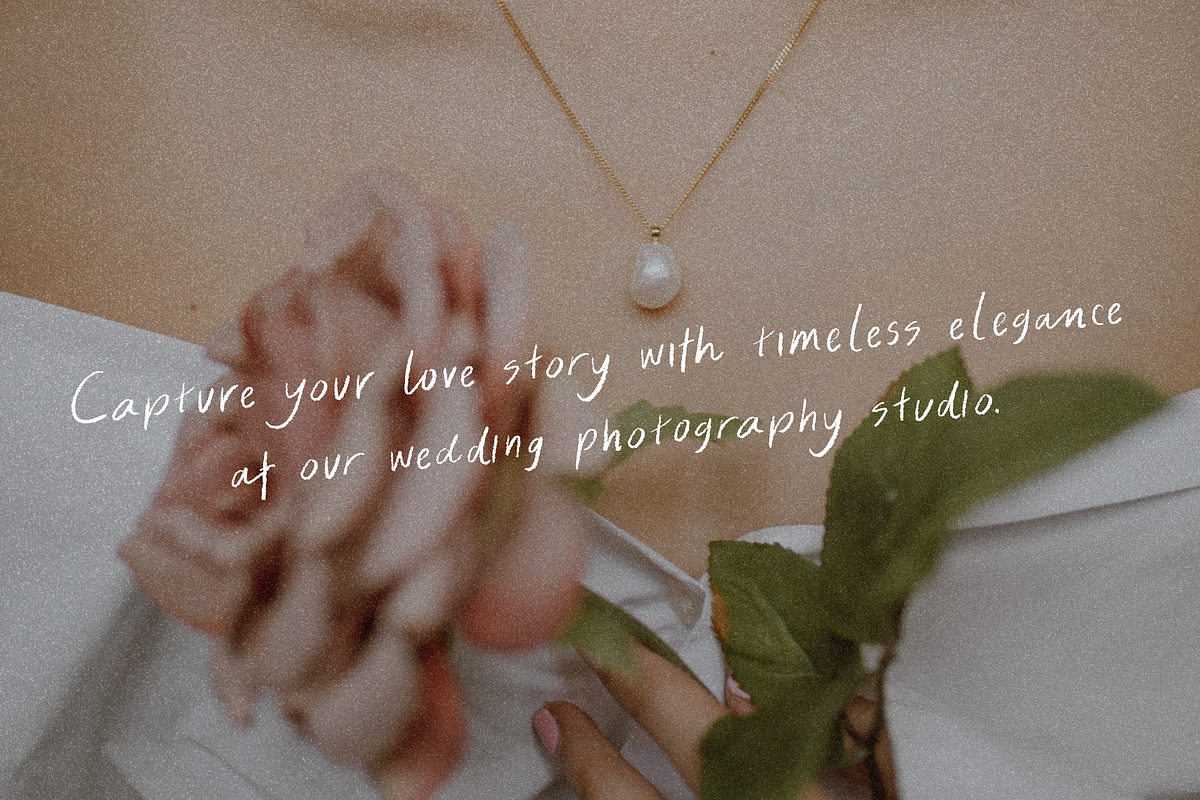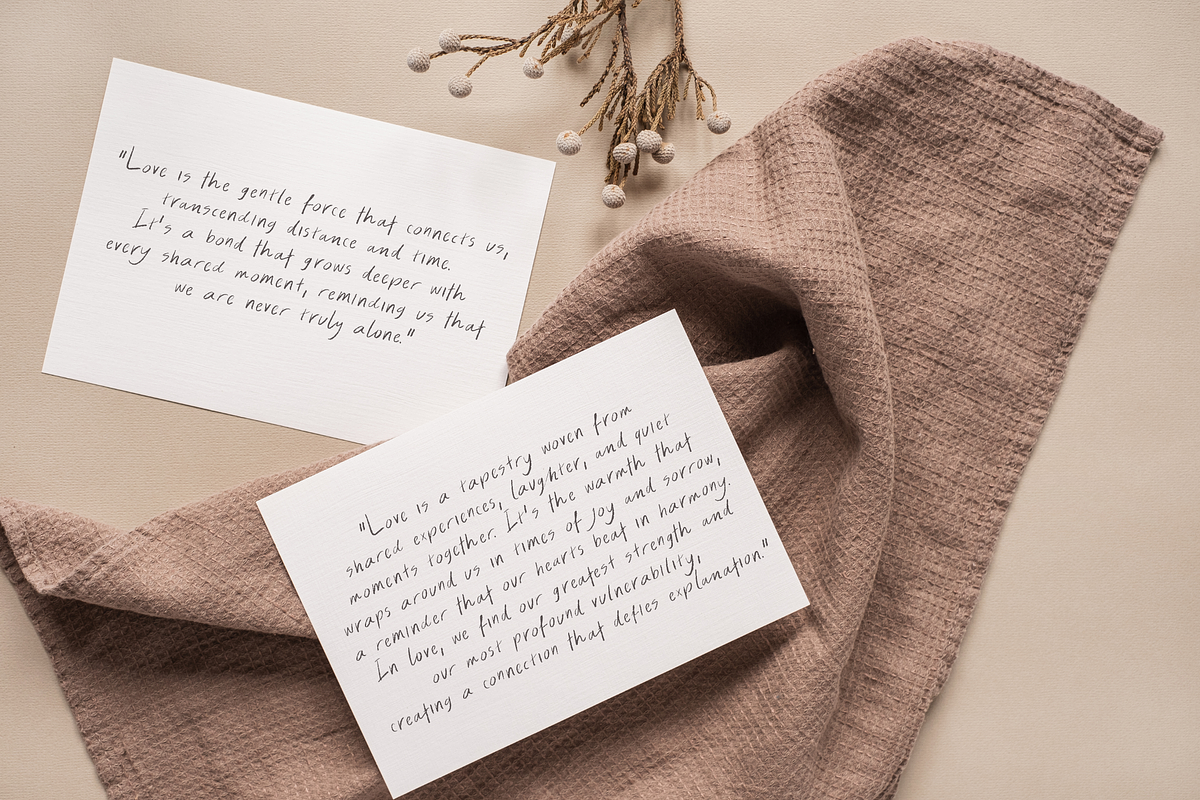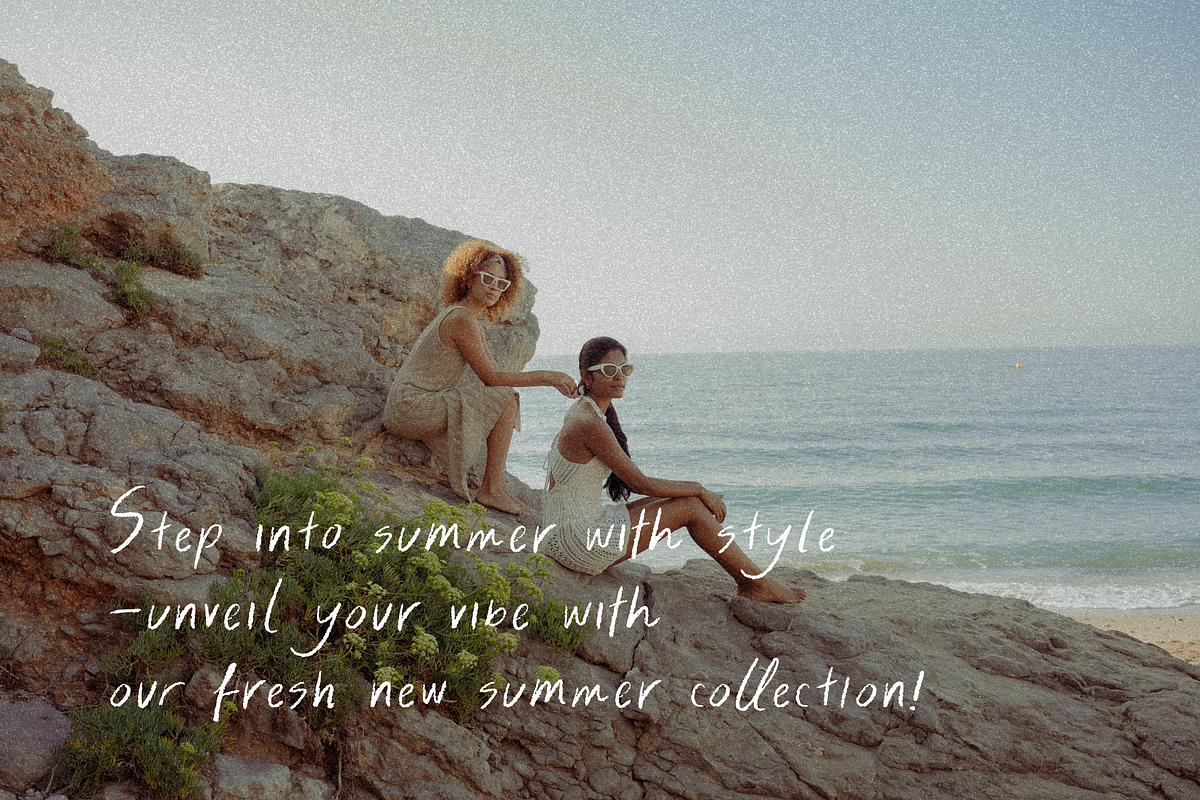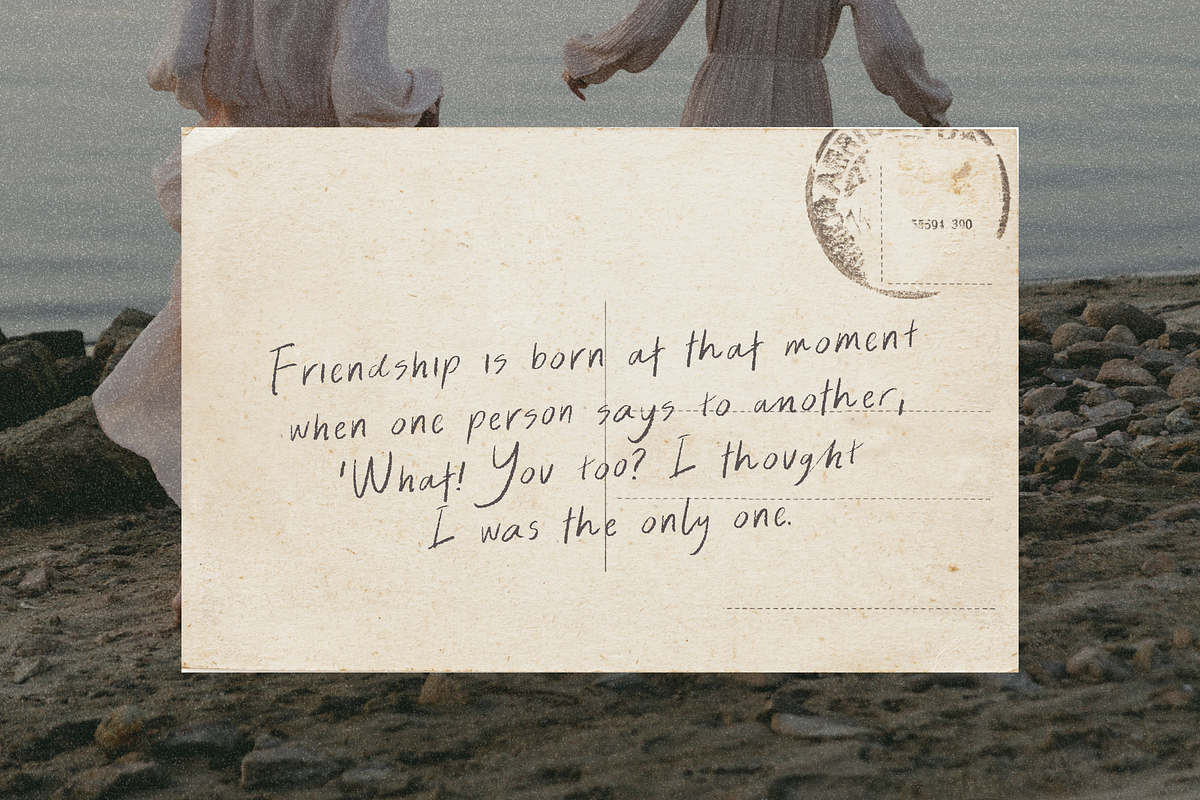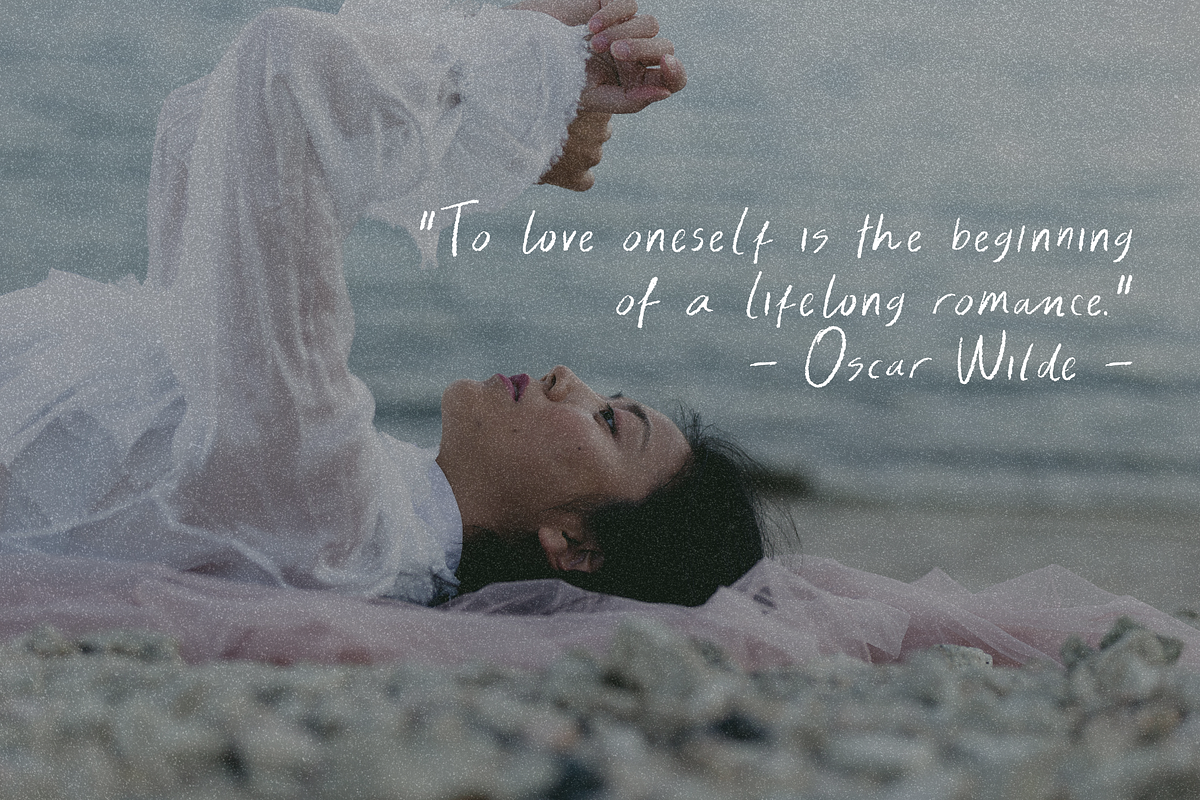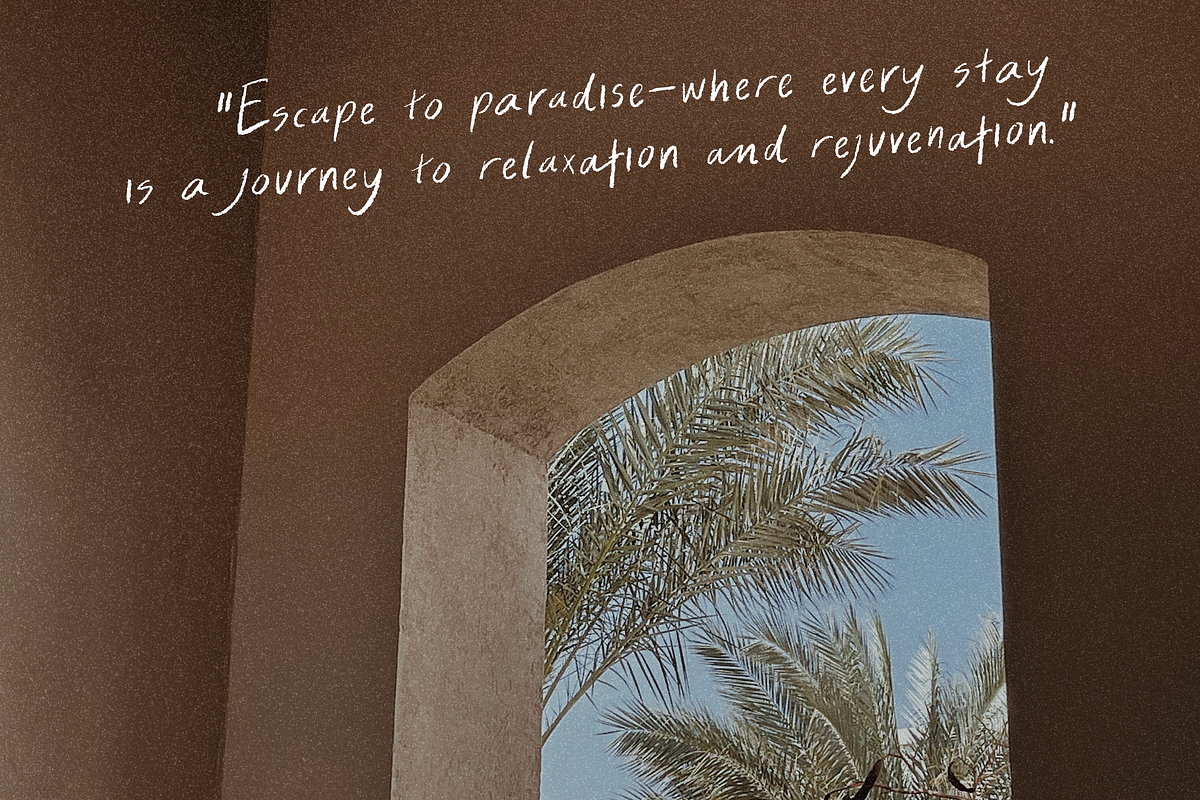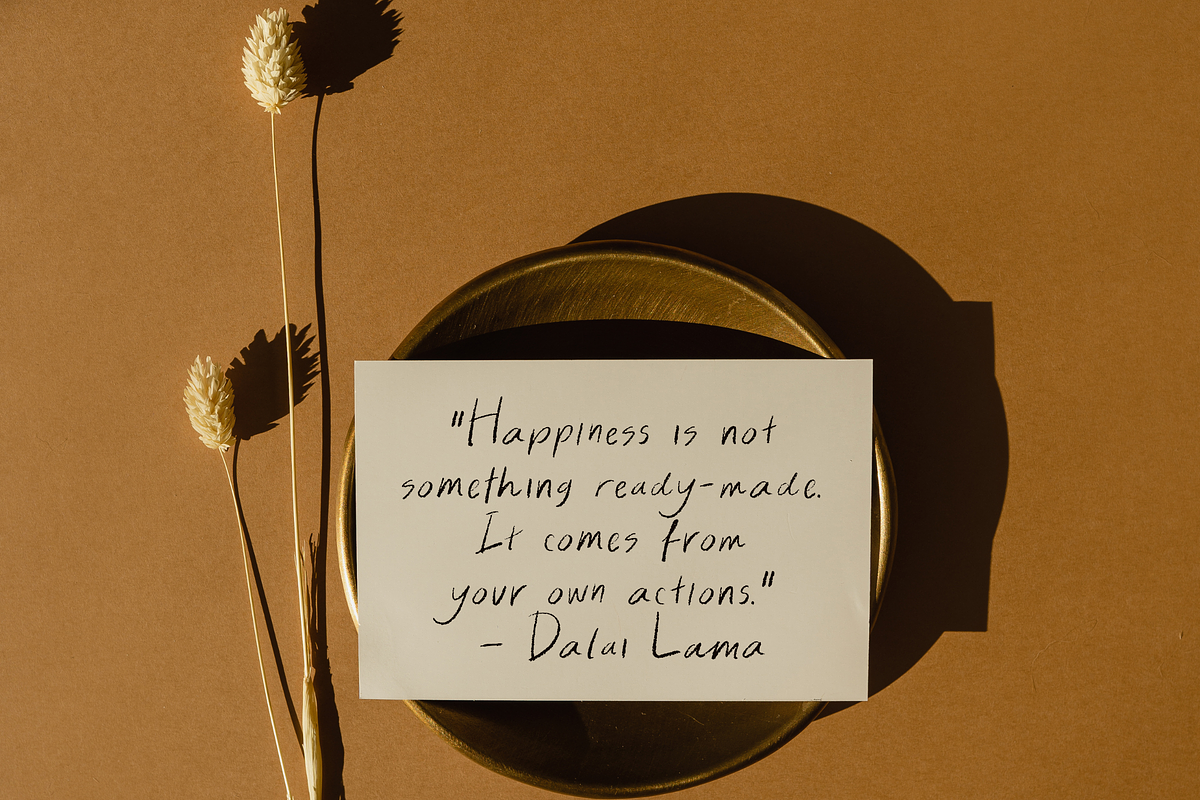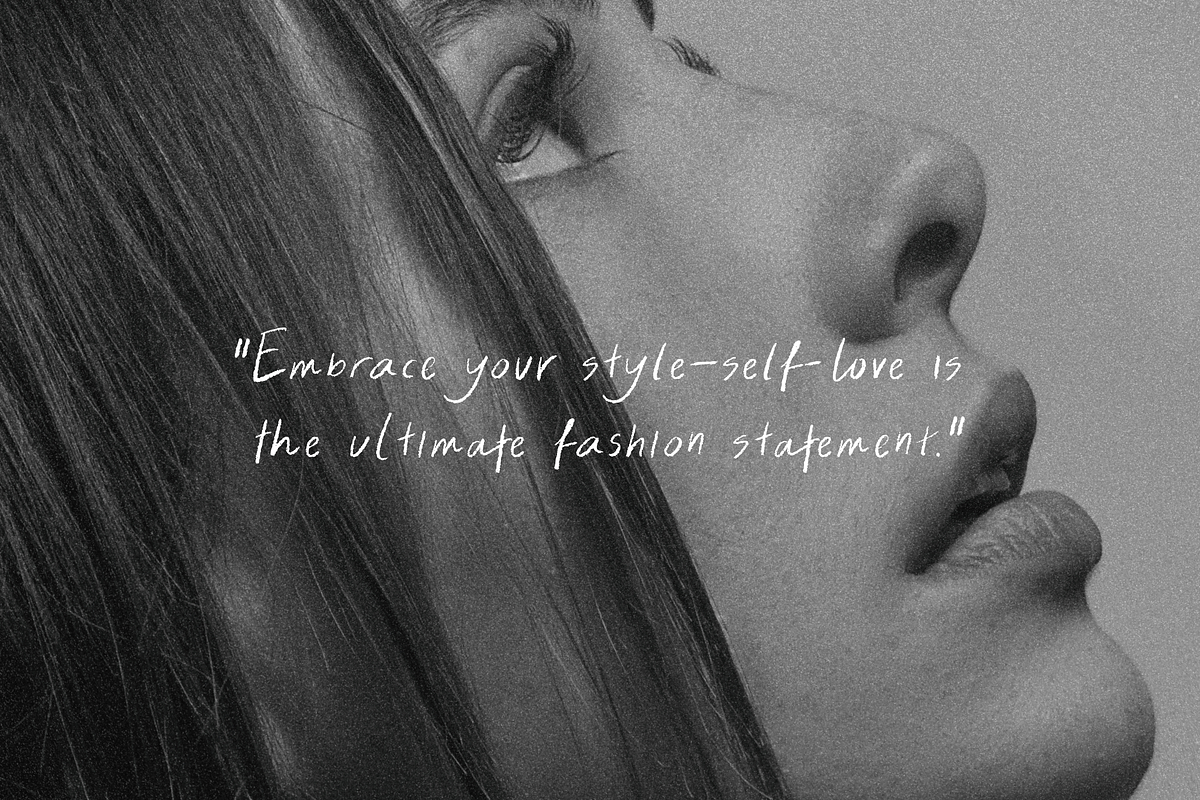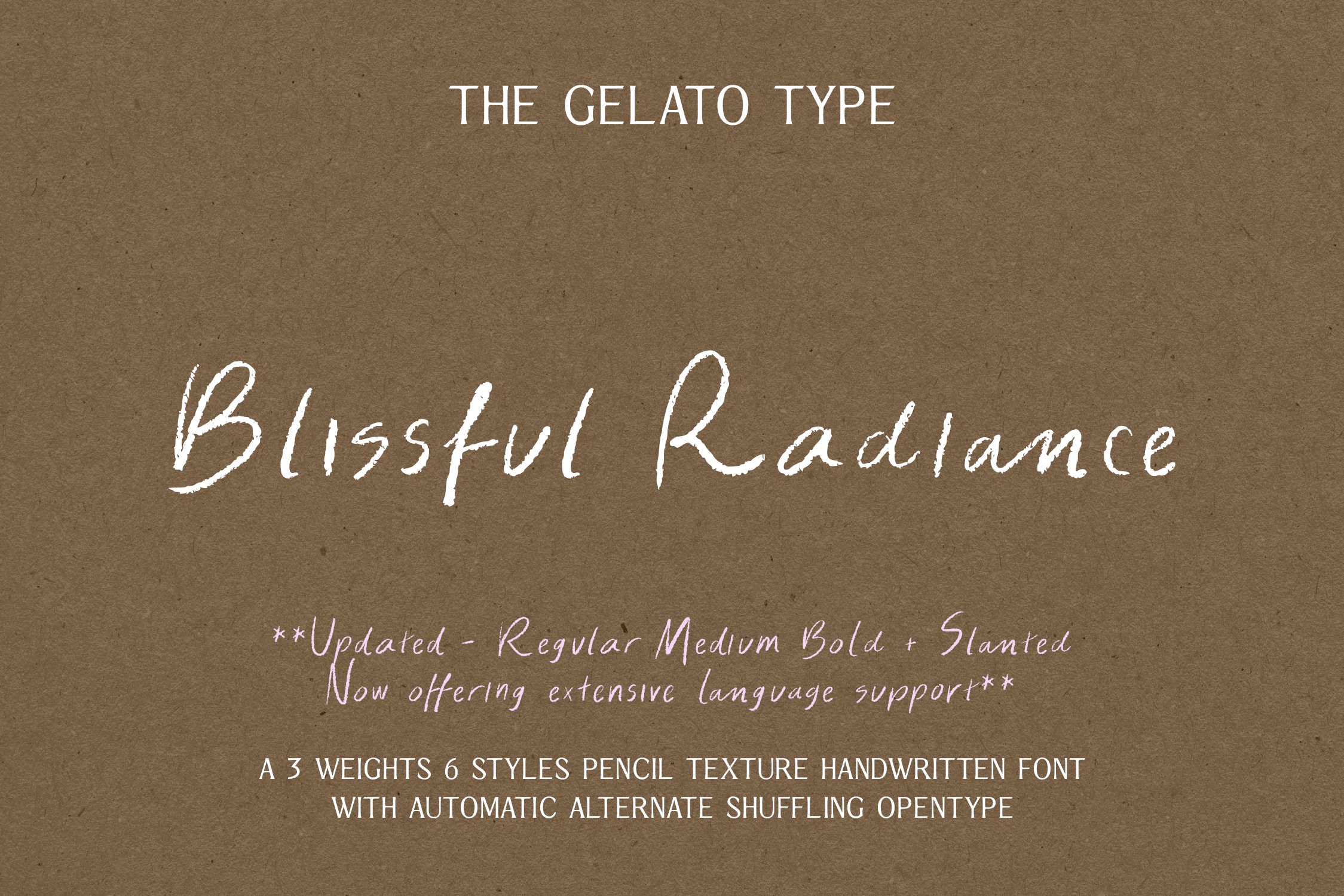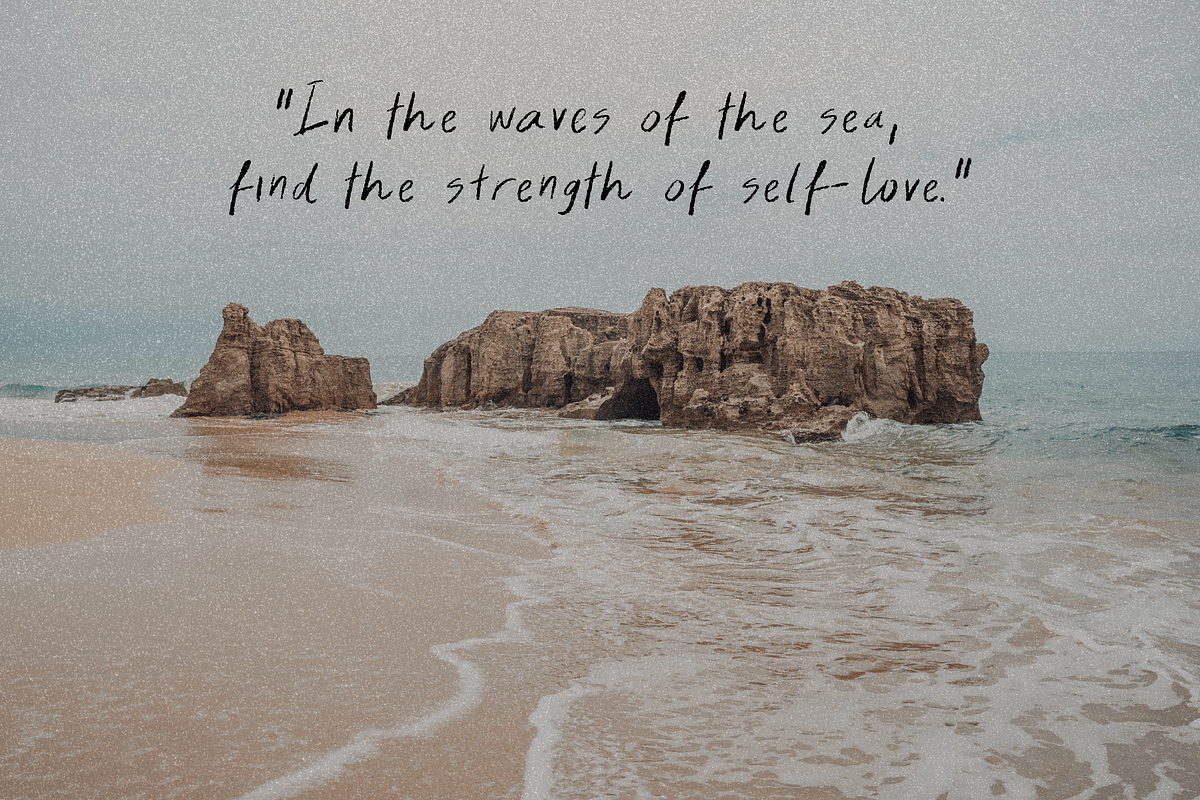
Blissful Radiance Handwritten Font
Introducing Blissful Radiance—a charming pencil texture handwritten font that captures the essence of warm, personal expression. Perfect for everything from heartfelt notes to stylish branding, this font radiates creativity and authenticity.
Unique Pencil Texture: Each letter boasts a delightful, hand-drawn feel, reminiscent of genuine pencil strokes, adding an organic touch to your designs.
Contextual Alternates: Our advanced OpenType feature includes 2 sets of alternates, allowing for automatic alternate shuffling as you type. Create a lively and dynamic look while eliminating monotonous repetition for a beautifully varied handwritten aesthetic!
Versatile Weights and Styles: Blissful Radiance offers 3 weights—Regular, Medium, and Bold— each paired with a Slanted version, providing 6 styles in total. This flexibility ensures the font can adapt to a variety of design needs.
Multilingual Support: With extensive character sets, Blissful Radiance ensures your messages can reach audiences across the globe, seamlessly accommodating various languages.
Now covering more extensive Latin-based languages: Western, Central, South Eastern European languages, South American languages, Oceanian languages, and Esperanto language
Whether you're designing invitations, crafting social media graphics, or creating branding elements, Blissful Radiance is your go-to font for a touch of warmth and whimsy. Elevate your projects with the effortless elegance of this stunning handwritten typeface!
This font is visually interesting, but the the letterforms are not production ready for methods such as plotter-cut vinyl. However, I overcame this by outlining the type in Adobe Illustrator and then defining a small offset path to simplify the vectors.